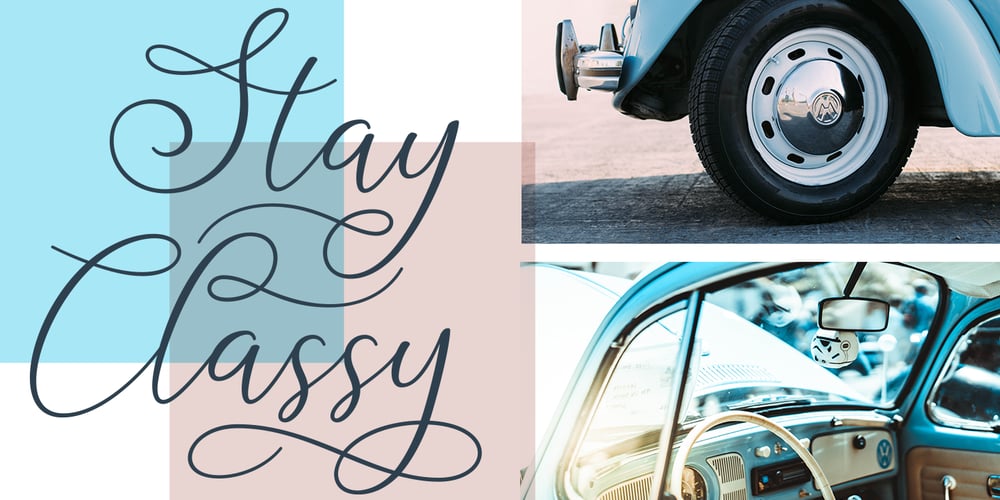
Sabyan Font Family was designed by Winarno and published by Bluestudio. Sabyan contains 1 styles and family package options. Introducing our newest product Sabyan. Sabyan is a modern and clean handwriting script font. Sabyan is suitable for all your design project needs such as: logo design, branding, covers, posters, magazines, wedding invitations, greeting cards, quotes and more. What’s included: – Sabyan OTF – Titling – Swashes – Stylistic Alternates: Sets 01, 02, 05 -Multilingual support: AÀÁÂÃÄÅCÇDÐEÈÉÌÍÎÏIÌÍÎÏNÑOØÒÓÔÕÖUÙÜÚÛWYÝŸÆßÞþ – Encoded PUA Characters Fonts are fully accessible without additional design software.